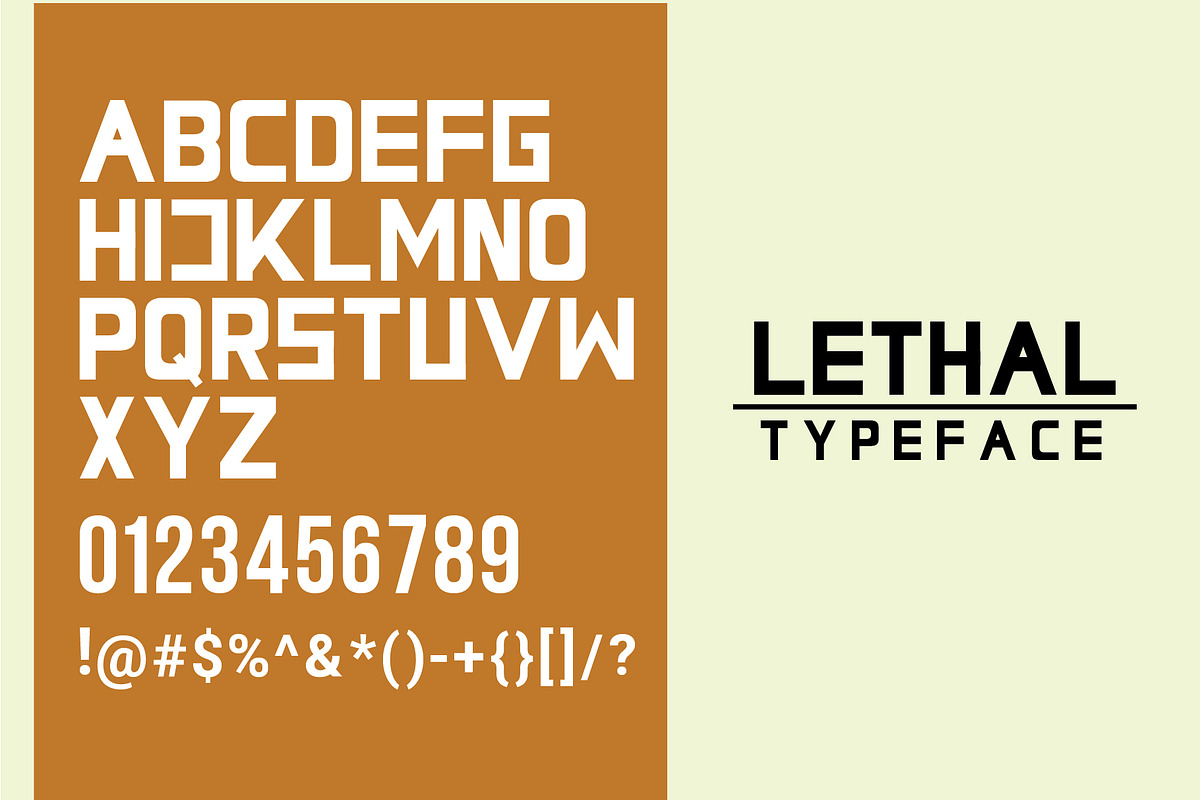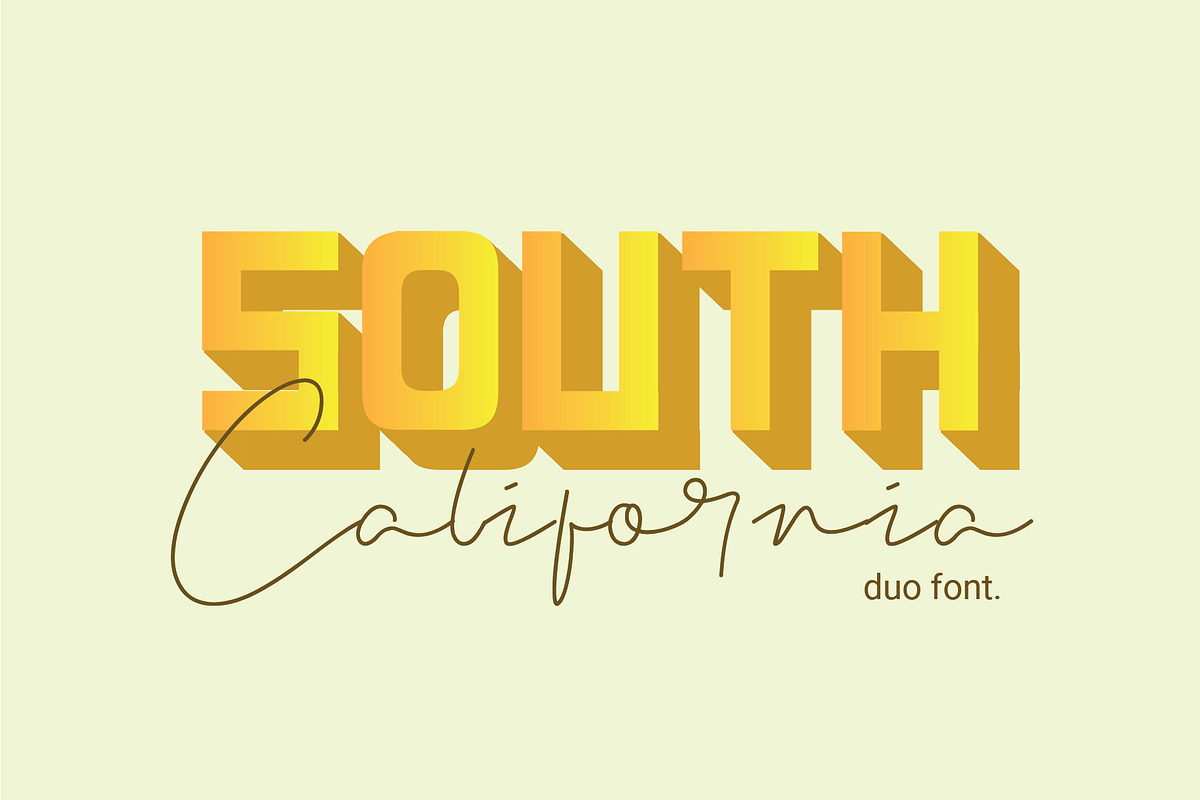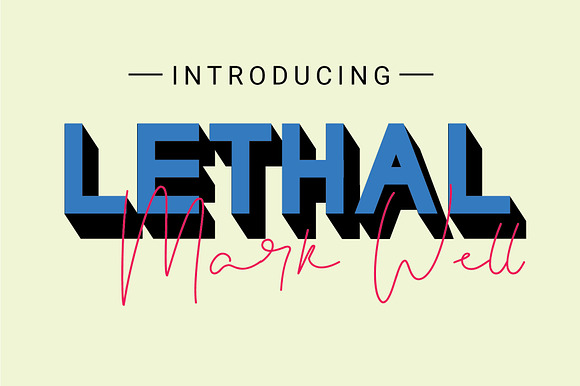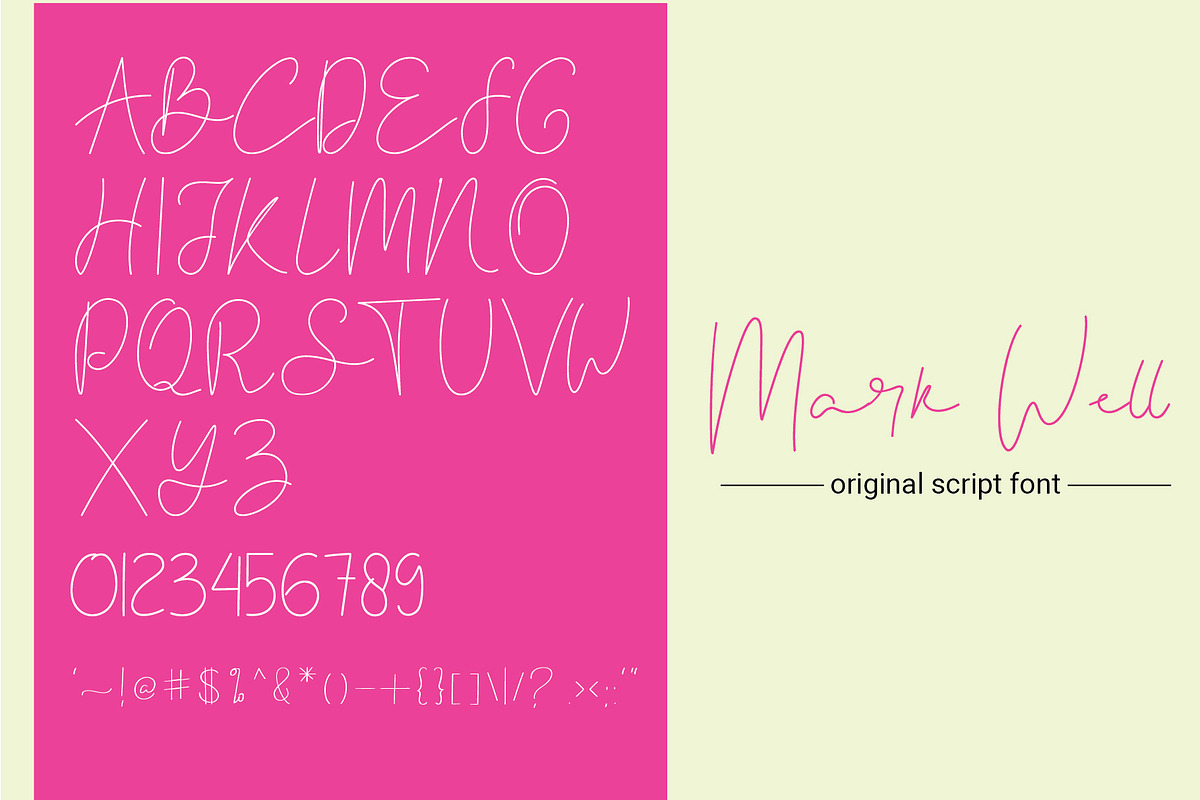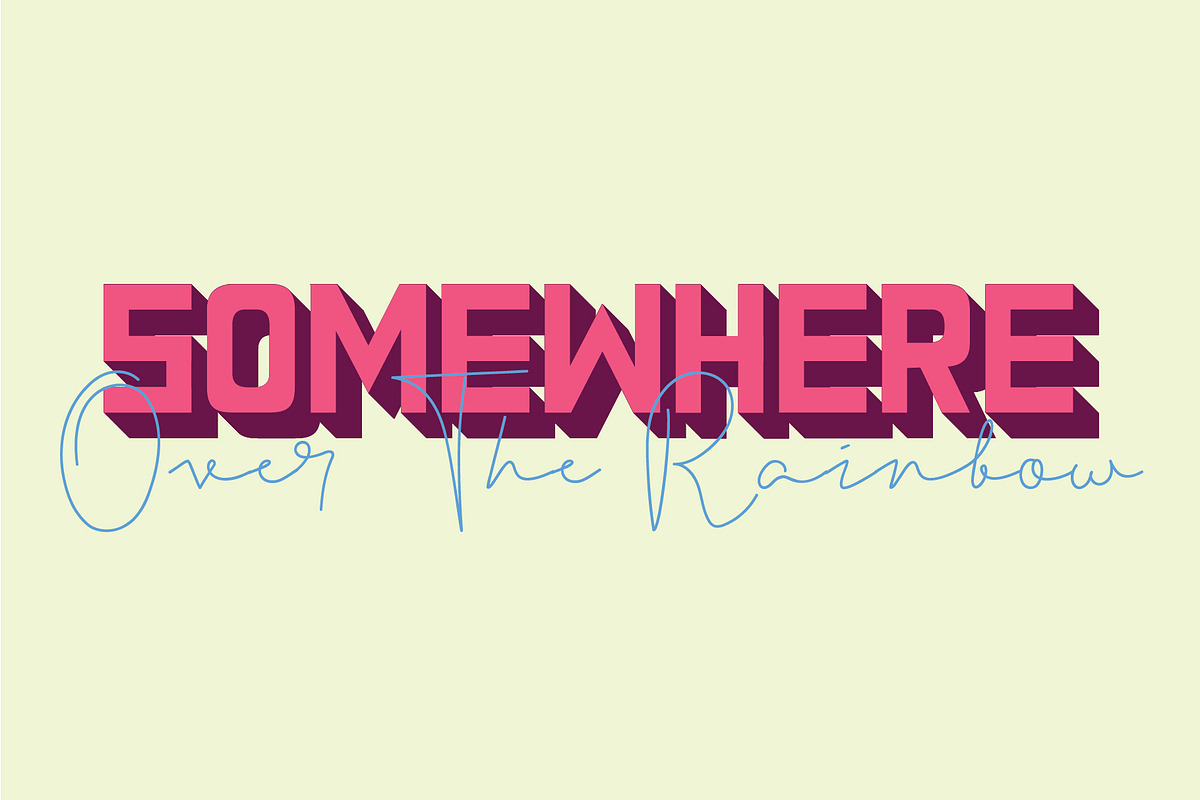
Lethal Markwell Duo Font
Hello there, here is DUO font, it's perfect for you to give your design an elegance style. This is an original hand writing font, perfect for give your design an authentic touch.
Lethal Markwell Duo Font by LetterStock fits naturally into Branding, posters, packaging, typography.